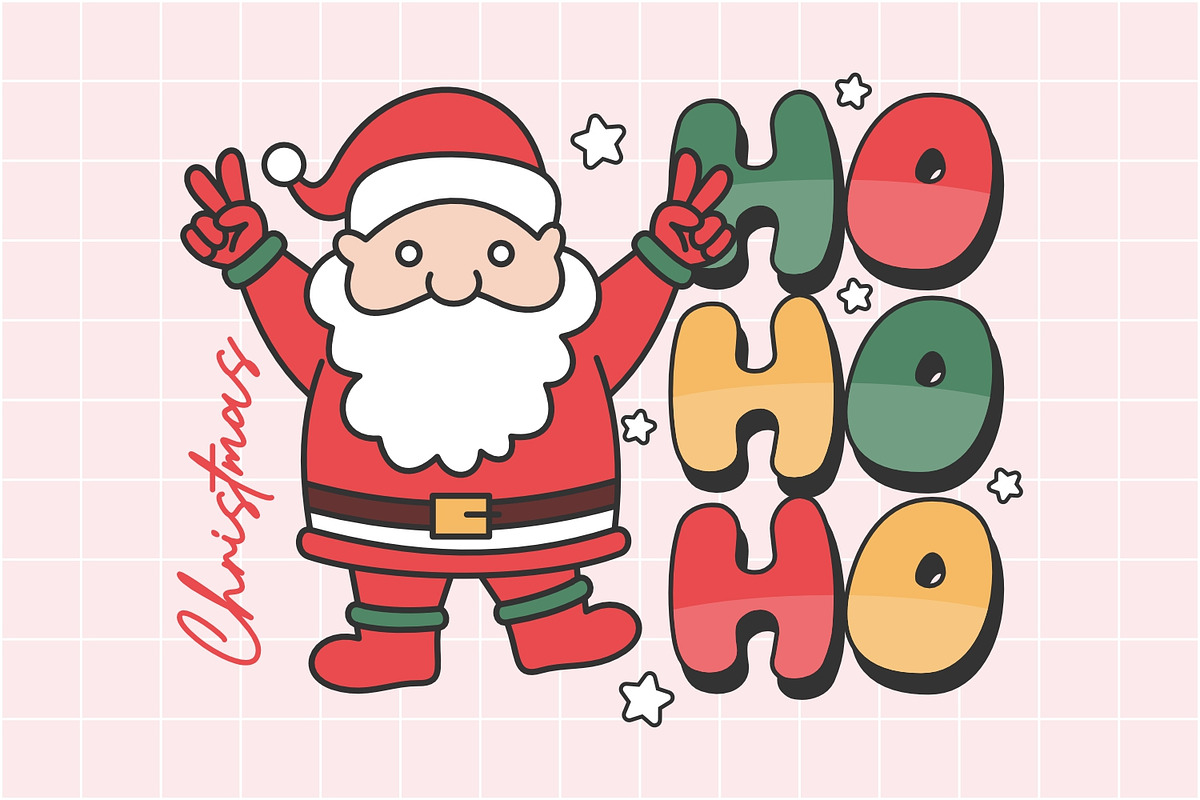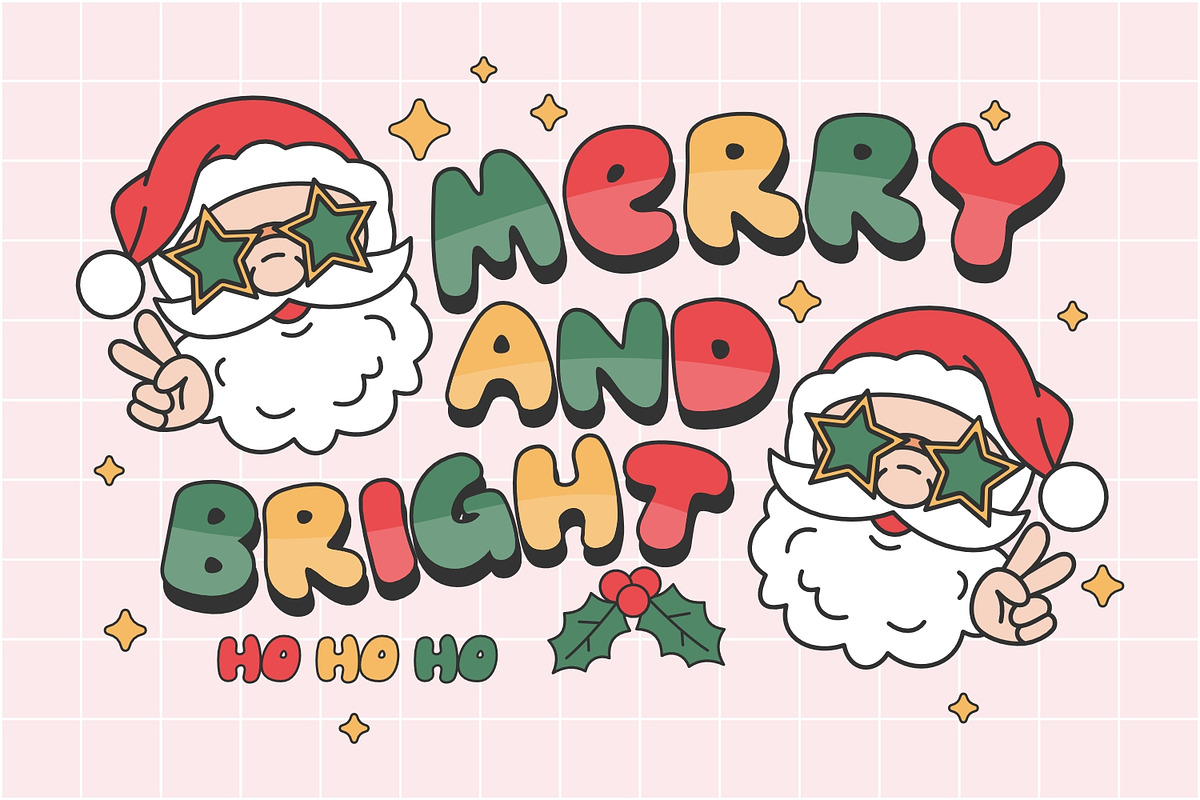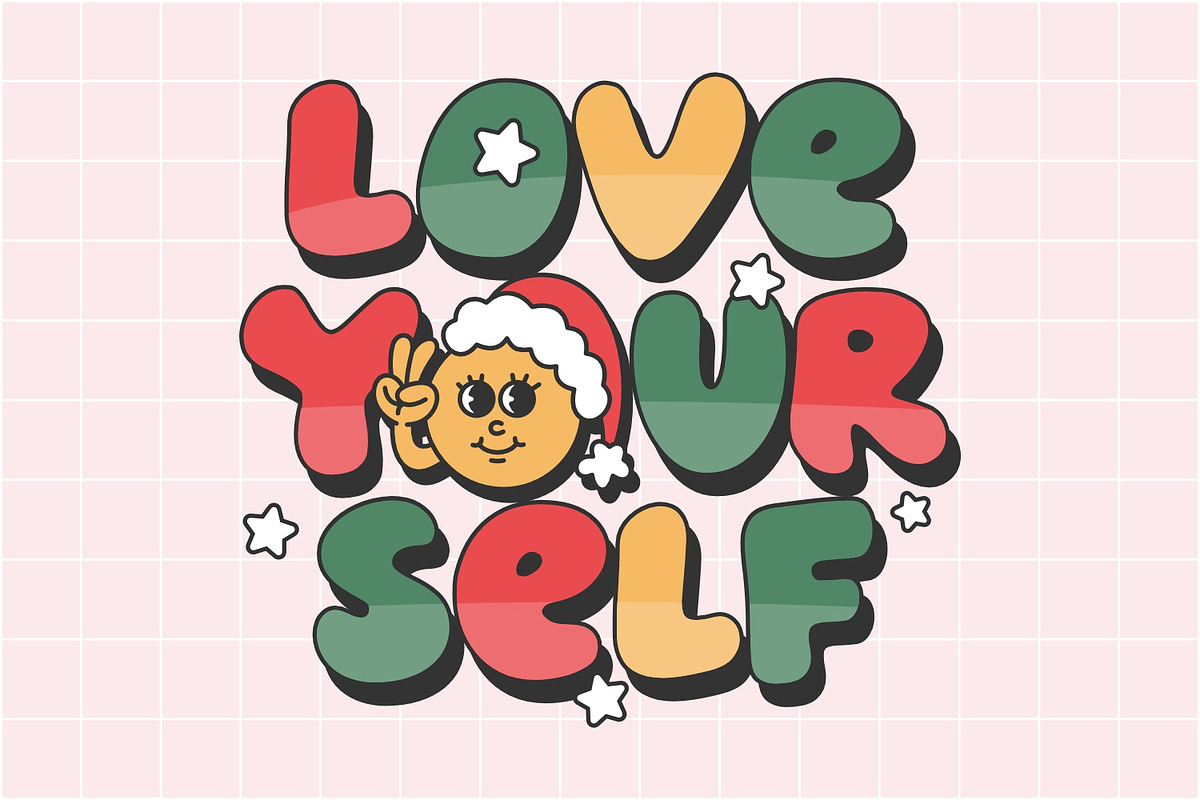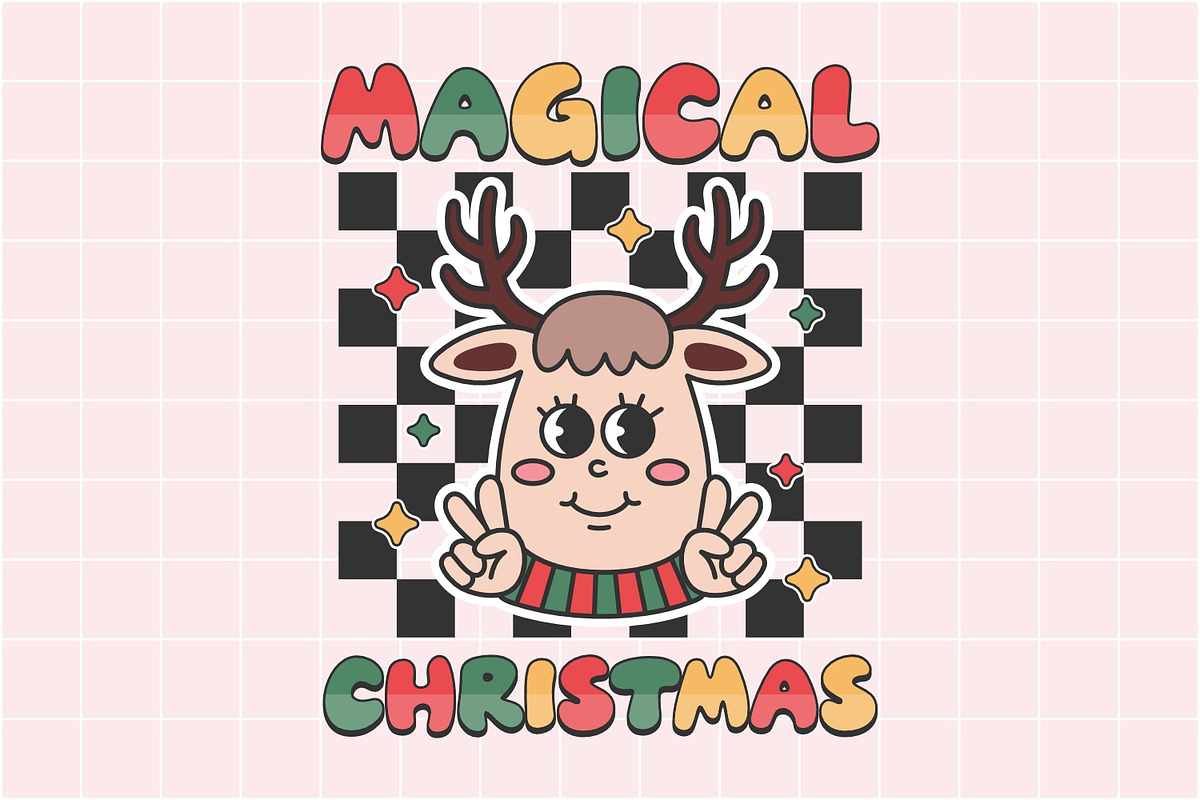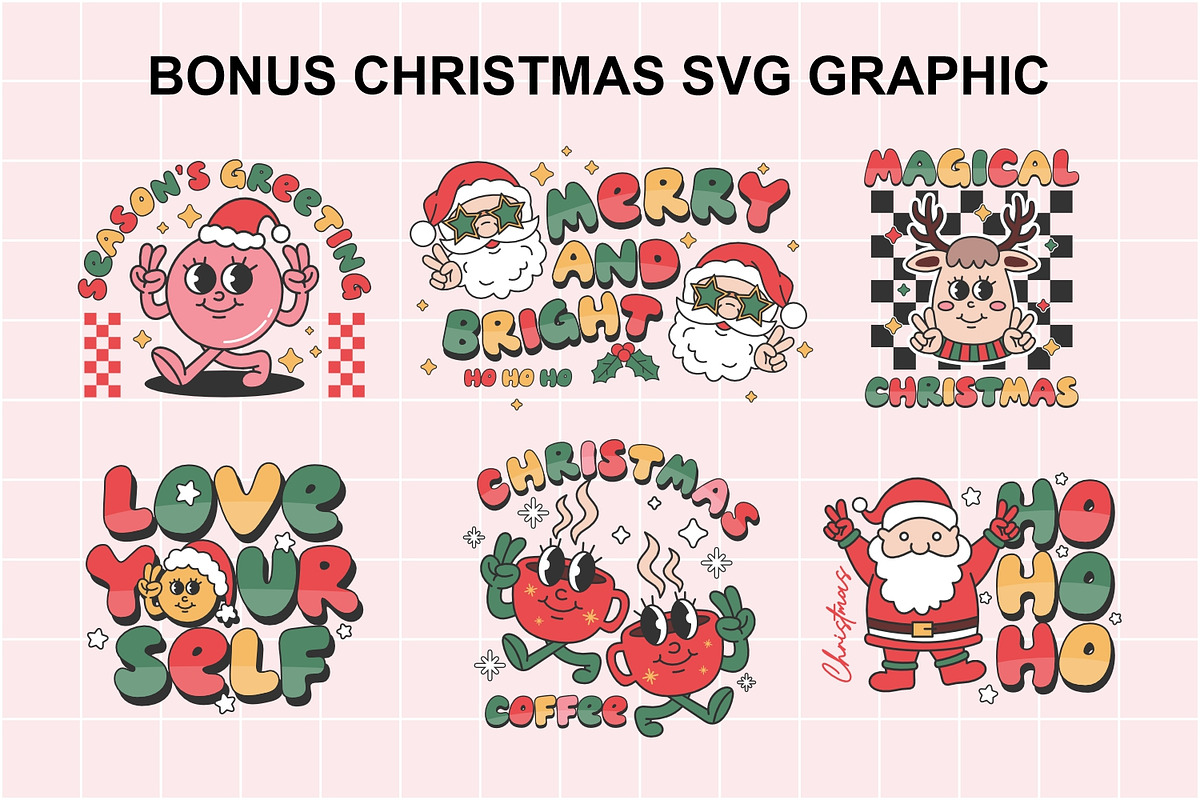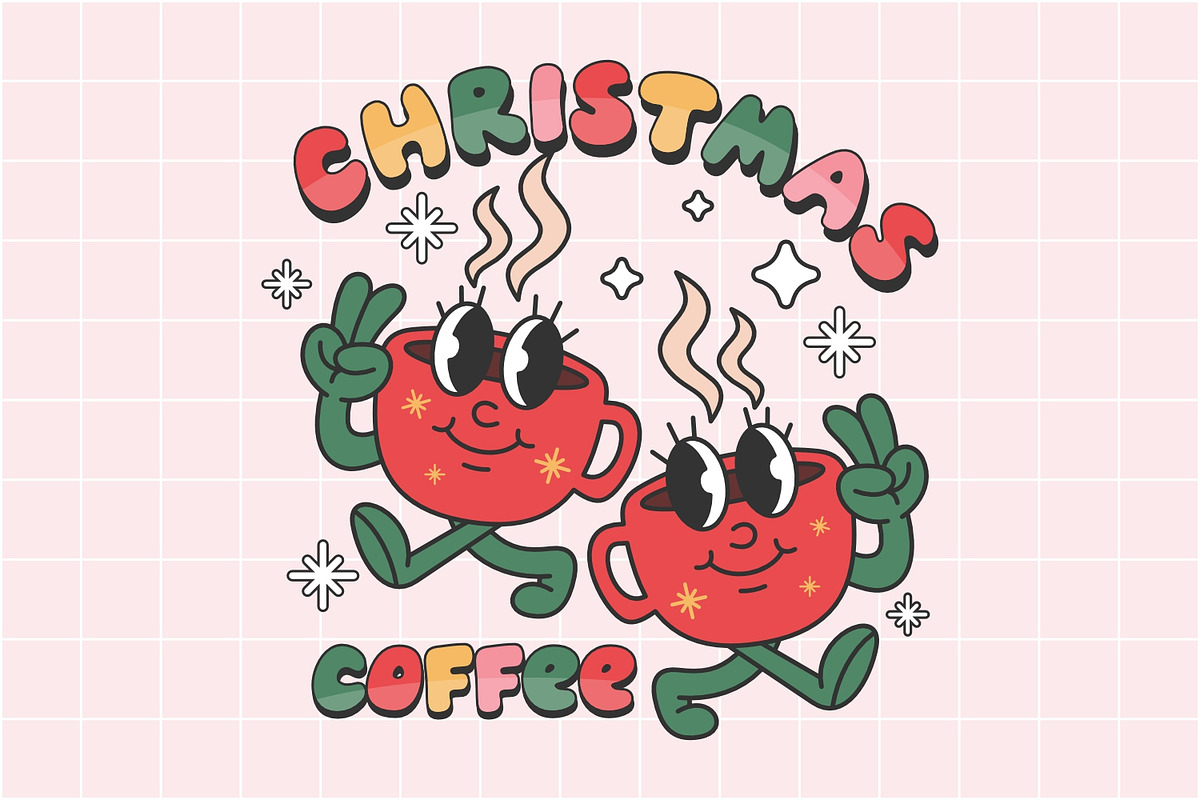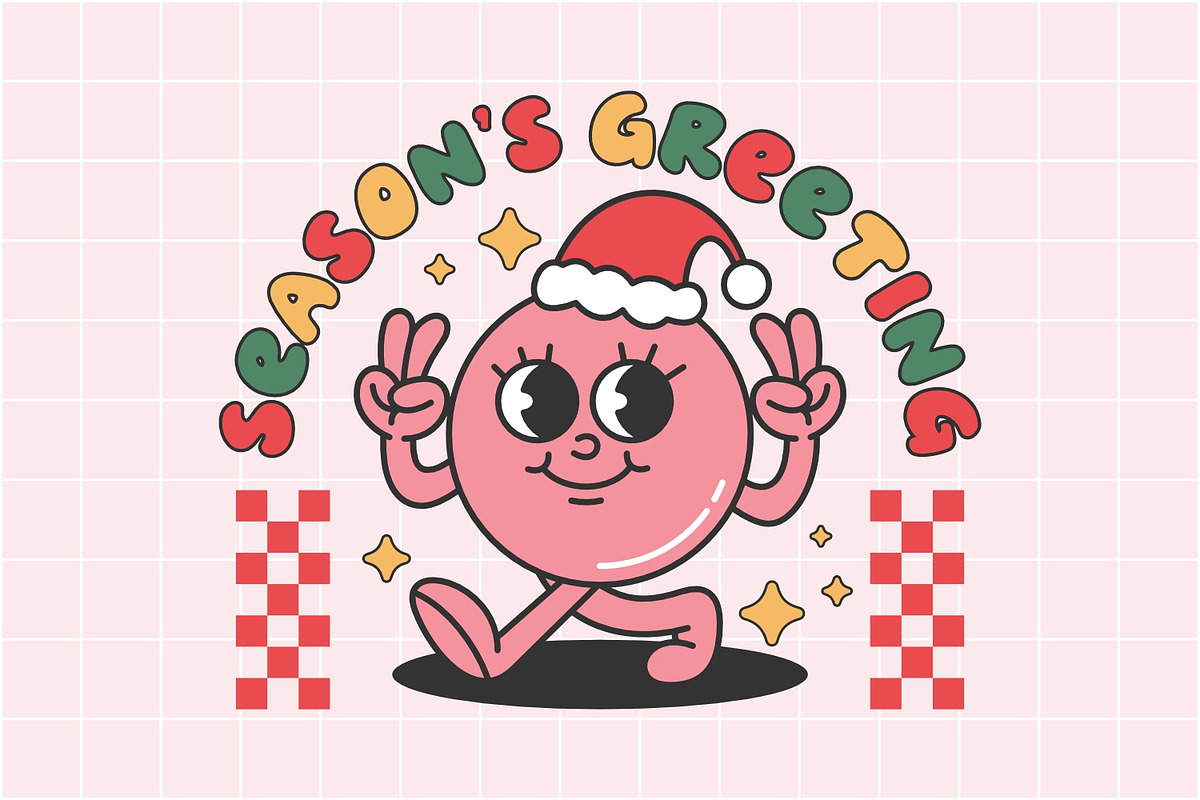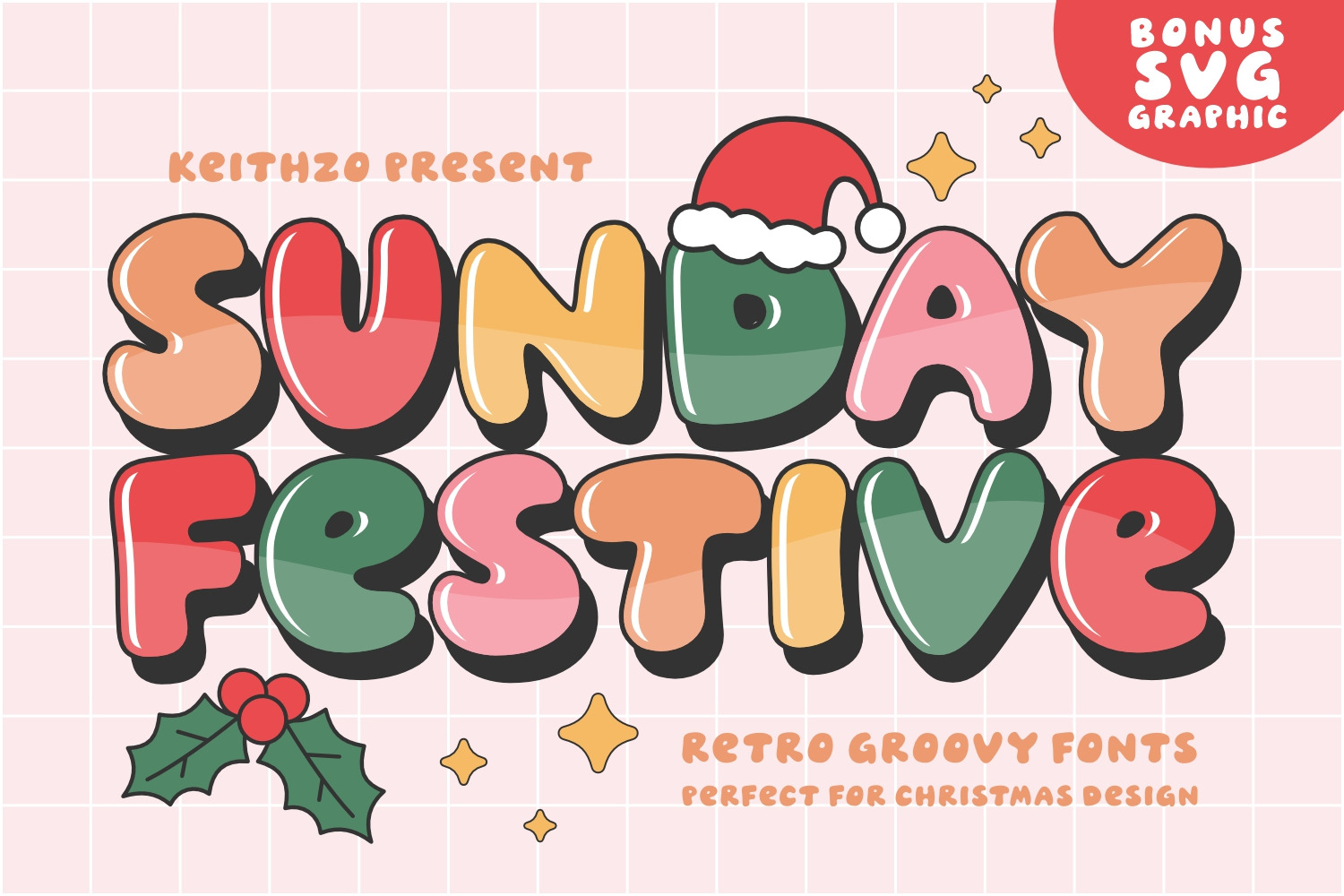
Sunday Festive - Christmas Font
Sunday festive is a fun , bold and retro an incredible display font. use this display font to add a special retro touch to your Christmas designs or anything else you can think of
You can freely explore using this font, because apart from its cool appearance, this font has many bonuses including Christmas typography quotes and Christmas illustrations
Masterfully designed to become a true favorite , this font has the potential to bring each of your creative ideas to the highest level ! Sunday festive perfect for any retro design that requires a groovy look and it’s guaranteed to make an good impact.